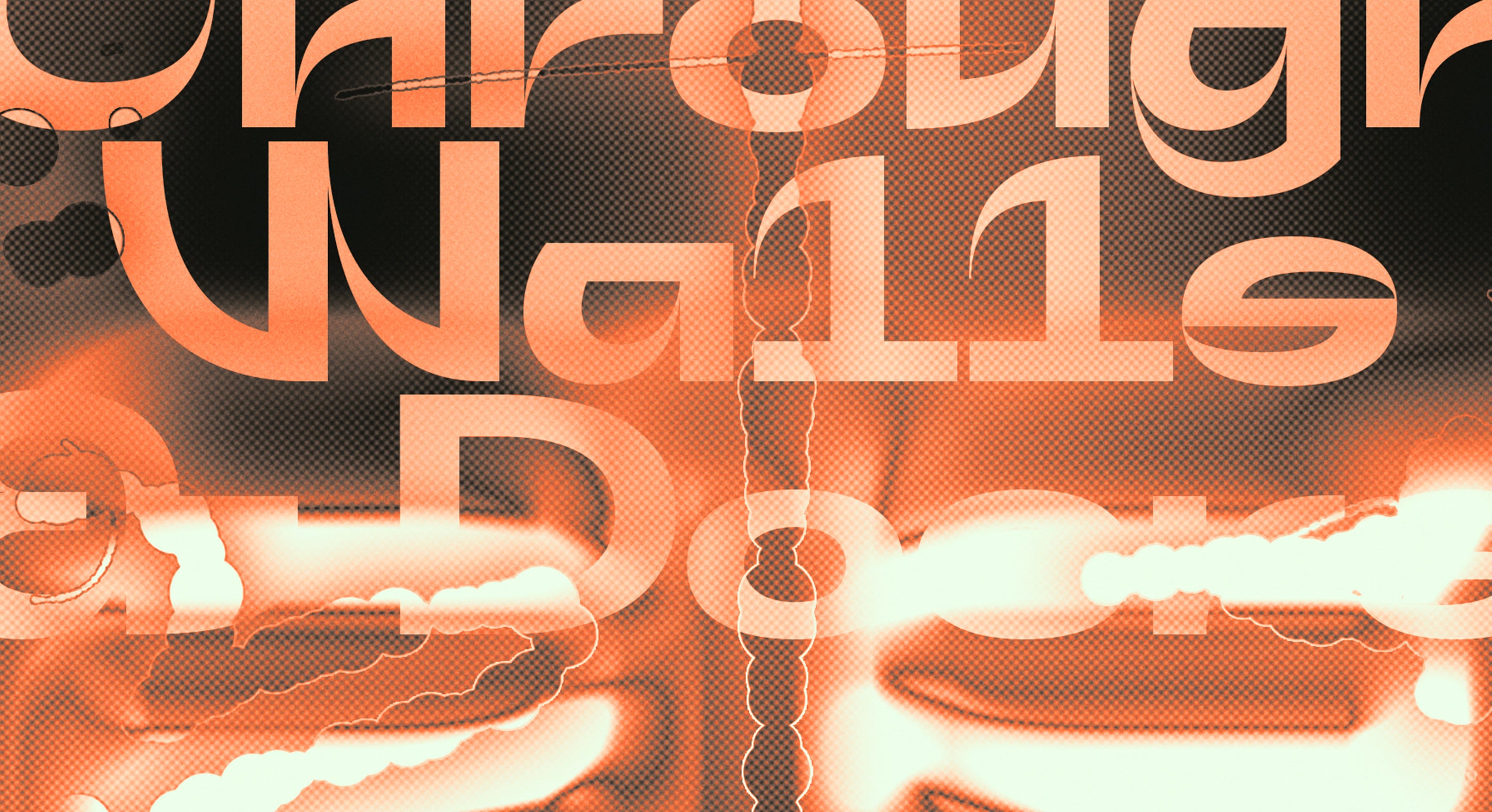
Named after the Japanese word for mysterious, ghostly, ghoulish apparitions, Yokai is indeed a monster.
Yokai
Folding subjectively schematized washi paper into exquisite kitsunes
Named after the Japanese word for mysterious, ghostly, ghoulish apparitions, Yokai is indeed a monster. That being said; however, not all monsters are monstrous. In fact, as is the case with Yokai, some monsters are kind, often misunderstood creatures. More creature comfort than creature feature.
With broad letterforms making up the teeth and claws of this bizarre beast, Yokai is an extended grotesque font that, although grotesque by definition, is not grotesque in its character. Short and squat, Yokaiโs semi-fixed width and low x-height make for a mythical mixture, both brutalist and futuristic, outfitted with numerous discretionary ligatures and mirrored uppercase alternates.